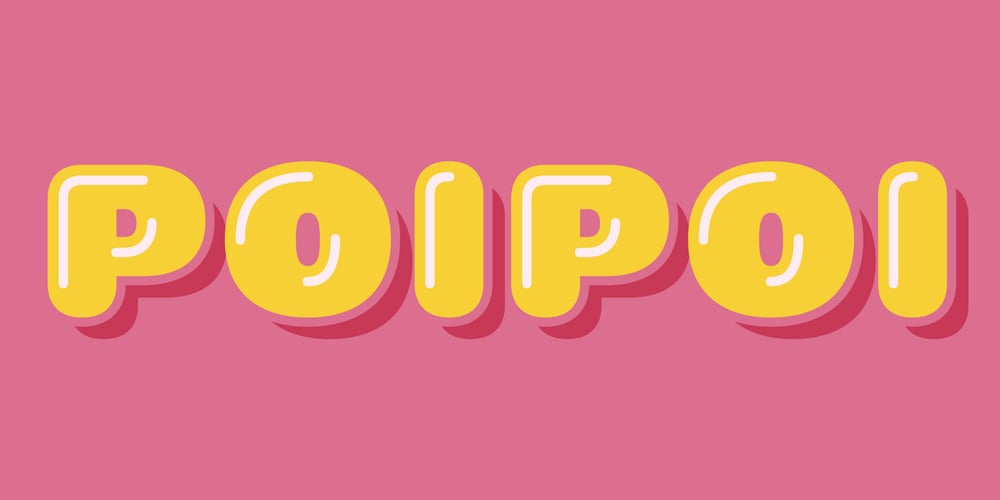
Poipoi Font Family was designed by Ryoichi Tsunekawa and published by Dharma Type. Poipoi contains 6 styles and family package options. Extraordinary impact and visual conspicuousness.Poipoi is a super 3D sans family for posters, logos and all display.The basic idea is not a brand new. The Stacking type system has been used since before wood type age.As you imagined, colored wood type(woodcut), many other engravings and contemporary printer machine print many colors separately with different printing plates for each color. Poipoi uses the same system for 3d effect. Please use Photoshop or Illustrator, or your favorite graphic design apps that can handle layers.Layers are the printing plates of wood type. You should be able to change text color for each layer.Poipoi “Standard” style is the base of this font family. You can add effects by stacking Highlight and shadow layers.Stacked layers in different color make the text in 3D.Instruction1. Type your text as you like.2. Set font-name “Poipoi” and font-style “Standard” 3. Set color of “Standard” layer. 4. Duplicate the “Standard” layer twice (One for Highlight, one for Shadow).4′. The layer order should be Highlight, Standard, and Shadow from top to bottom.5. Set font-style and color of “Highlight” and “Shadow” layers.6. Adjust tracking if you need. (Please use same tracking value for all 3 layers.)For further detail, https://www.dropbox.com/s/xymis7dh5hwxn9q/Poipoi.pdfPoipoi Standard, Highlighted, and shadowed style can be used solely. Rounded terminals add soft, cute, and casual impressions to your design.Spec:Over 400 glyphs!Basic Latin ✓Western Europe ✓Central Europe ✓South Eastern Europe ✓Mac Roman ✓Windows 1252 ✓Adobe Latin 1 ✓Adobe Latin 2 ✓Adobe Latin 3 ✓Almost all Latins are covered.